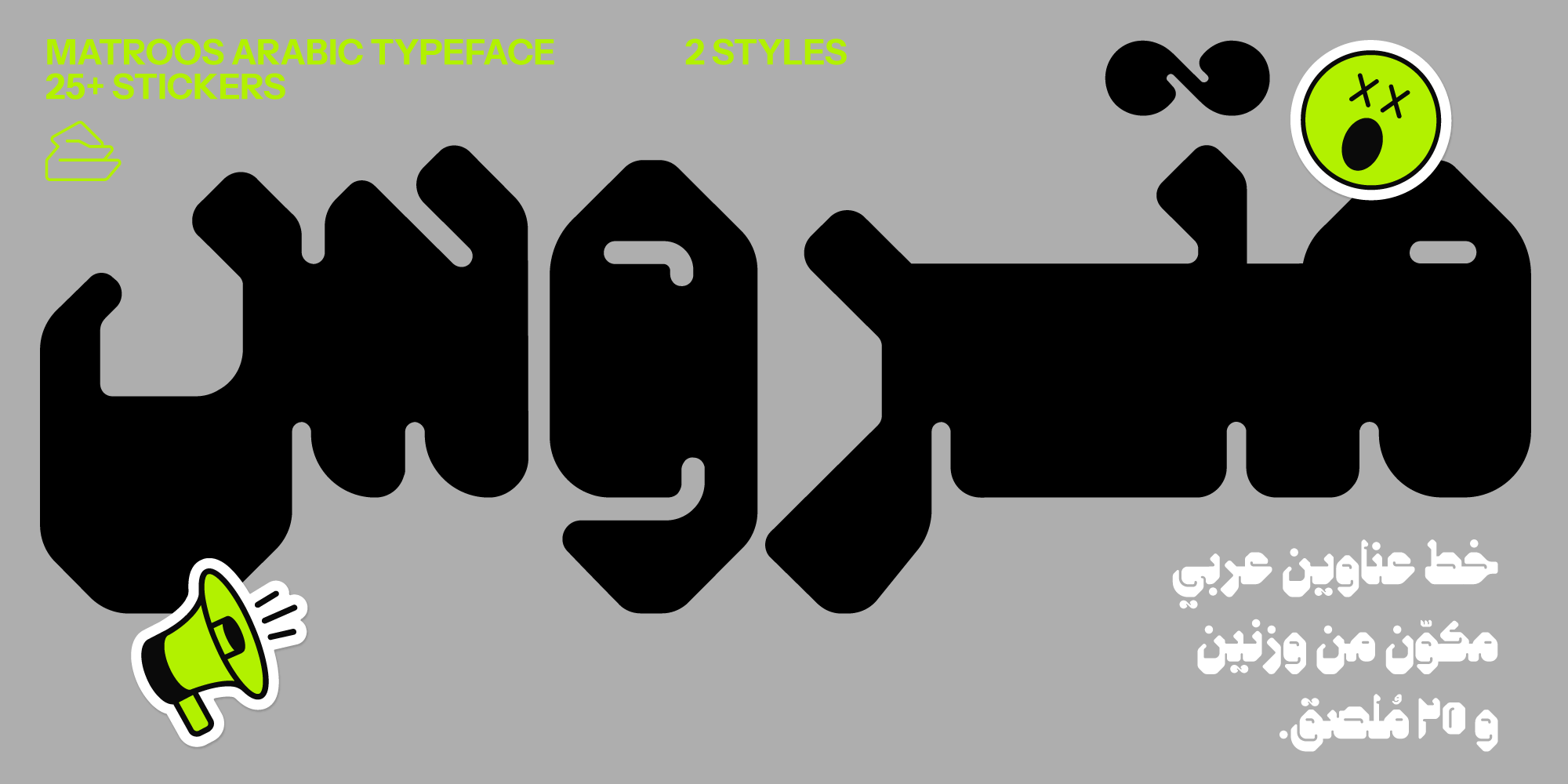
The Matroos Arabic Font is an excellent choice for designs that demand a modern, elegant, and highly legible Arabic script, often blending traditional aesthetics with contemporary appeal. Imagine it gracing the headlines of sophisticated Middle Eastern publications, adding a refined and authentic touch to branding for luxury goods in Arab markets, or enhancing the user interface of digital platforms designed for Arabic speakers. It's also perfectly suited for captivating mosque signage, elegant wedding invitations in Arabic, and any project where you want to convey a sense of cultural richness, precision, and modern design. With its balanced strokes and often geometric or humanist influences, the Matroos Arabic Font is ideal for projects that aim for visual clarity and a distinguished impression in the Arabic script.
What makes the Matroos Arabic Font truly exciting is its remarkable ability to render complex Arabic characters with both aesthetic beauty and exceptional readability. It balances the inherent calligraphic art of Arabic with a modern sensibility, making it suitable for a wide range of applications from digital screens to high-quality print. This font ensures that your message is not just seen, but understood and appreciated for its cultural authenticity and design prowess. It injects a sense of sophistication and broad appeal into your designs, making it a reliable choice for communicating effectively with Arabic-speaking audiences. The Matroos Arabic Font Free Download offers a fantastic opportunity to infuse your projects with this distinctive character.
The Matroos Arabic Font family is typically designed to offer versatility through various weights and potentially stylistic alternatives, maximizing its adaptability for diverse design requirements within the Arabic script. While specific family members can vary, you can often expect to find:
Matroos Arabic Regular
Matroos Arabic Bold (for added emphasis on titles or key information)
Matroos Arabic Light (for a more delicate and refined appearance)
Matroos Arabic Medium (a weight between regular and bold for hierarchical nuances)
Matroos Arabic Display (potentially with unique characteristics for large-size use)
These variations provide flexibility for different design applications, allowing you to create engaging visual hierarchies and maintain a consistent, elegant aesthetic across all your projects in Arabic.